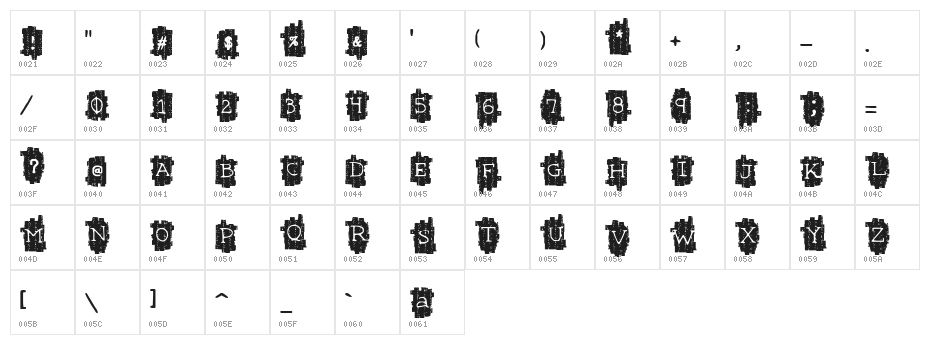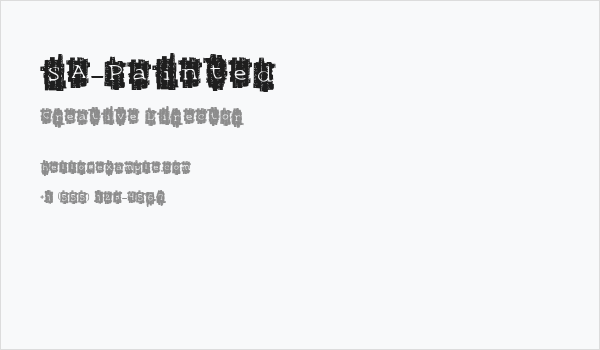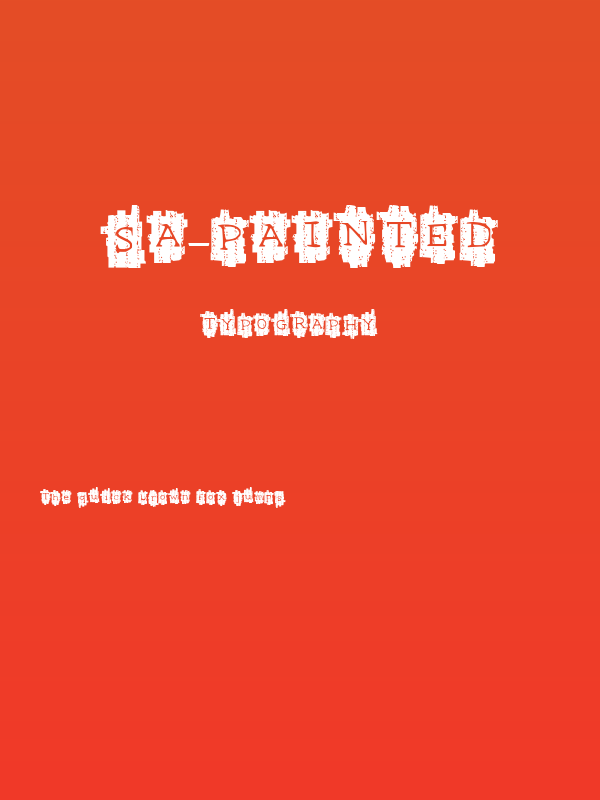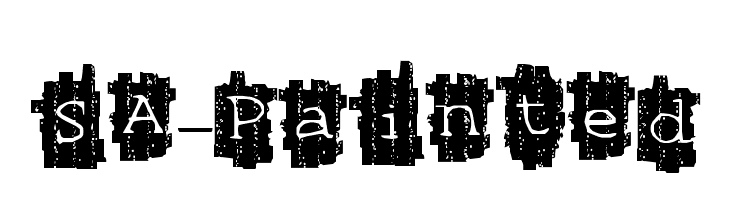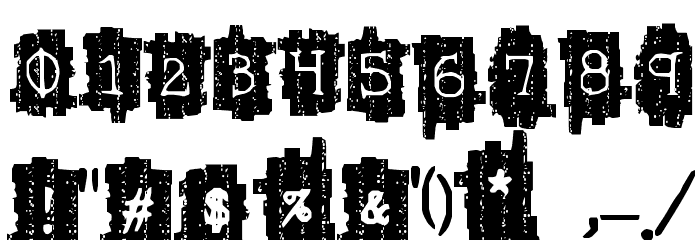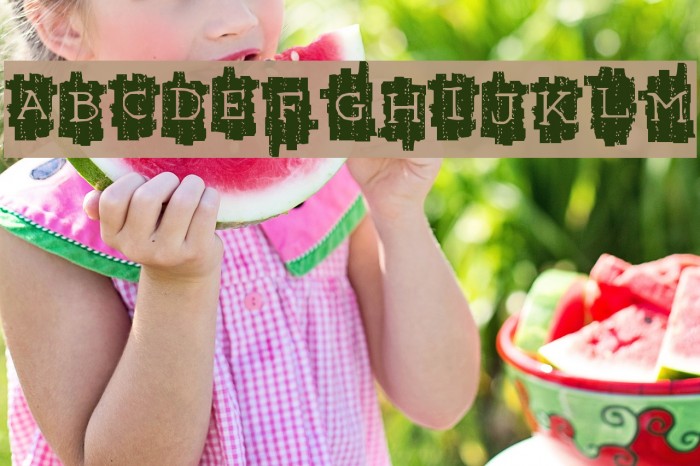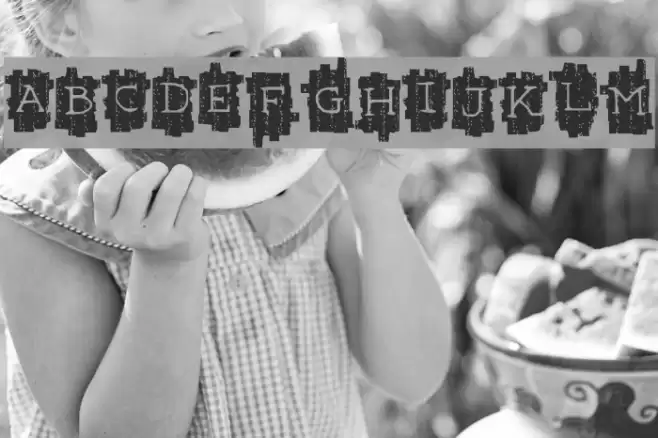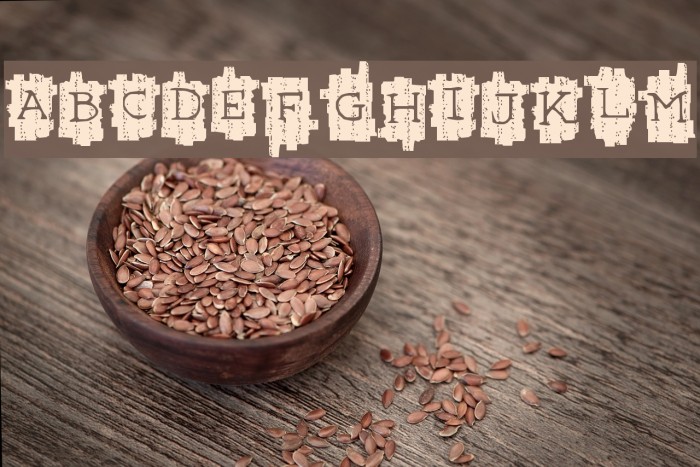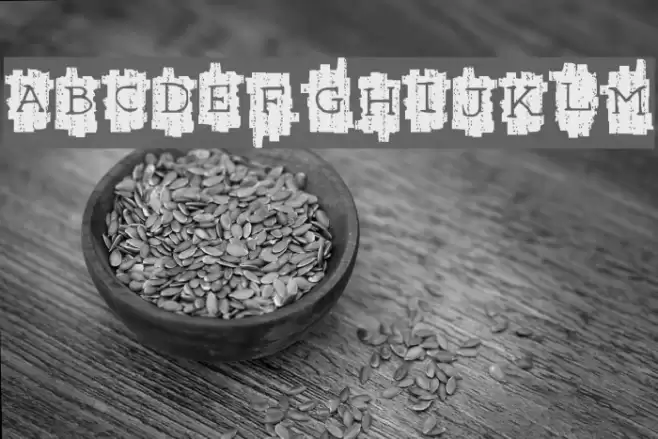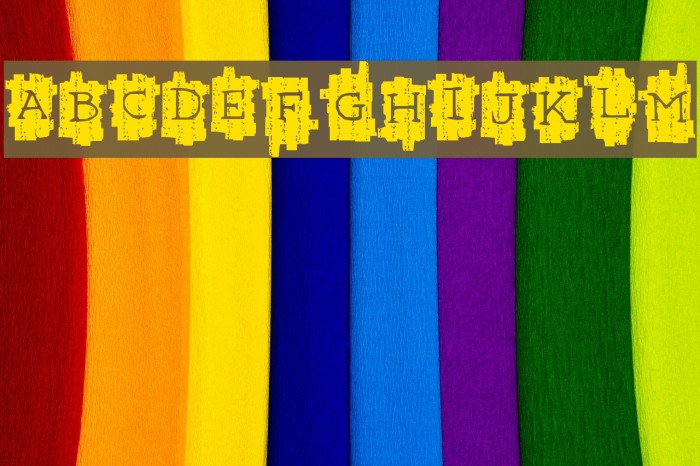
SA-Painted Font
✎ Stencil
| Gesamtstil | Urban, Artistic, Distressed |
| Vorgeschlagene Projekte | Ideal for street art designs, posters, album covers, and branding that requires a bold statement. |